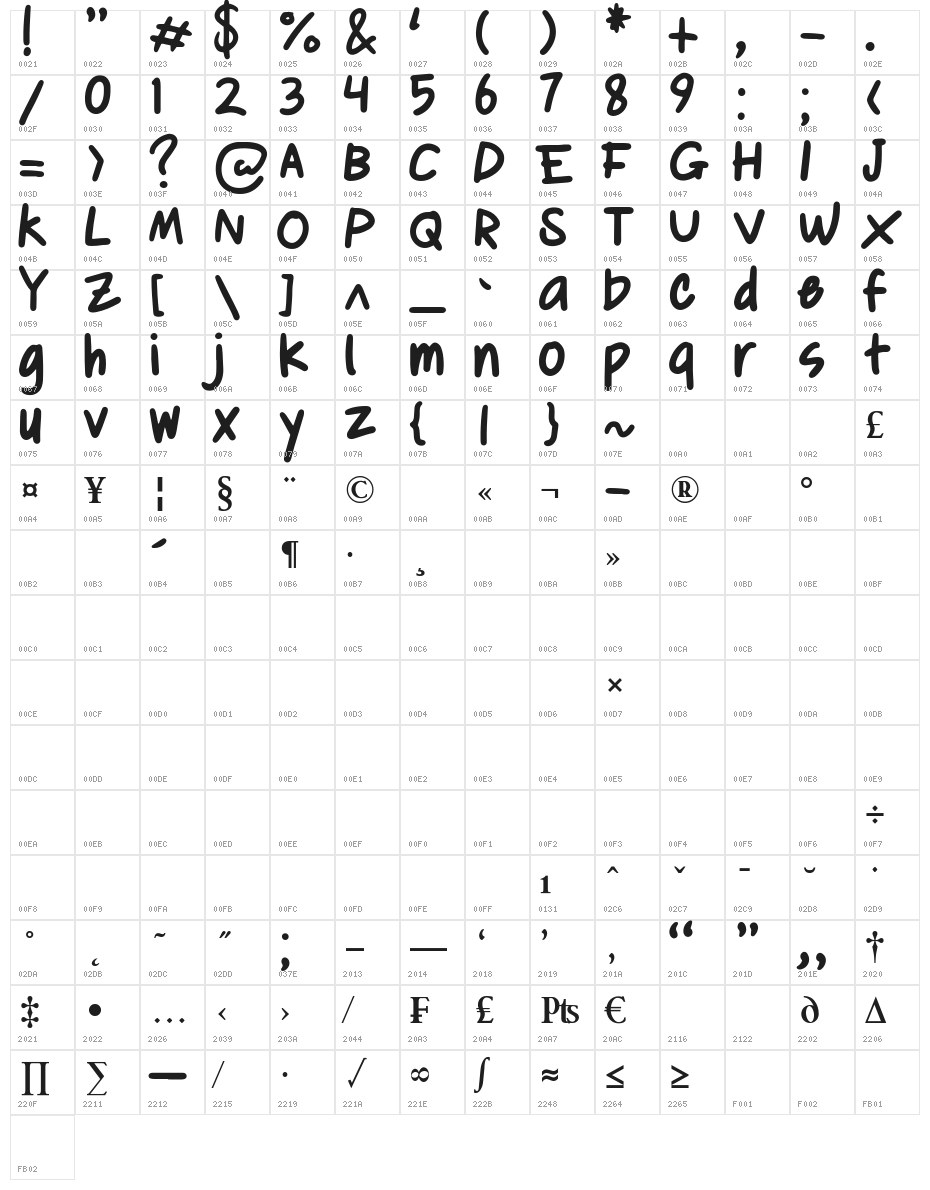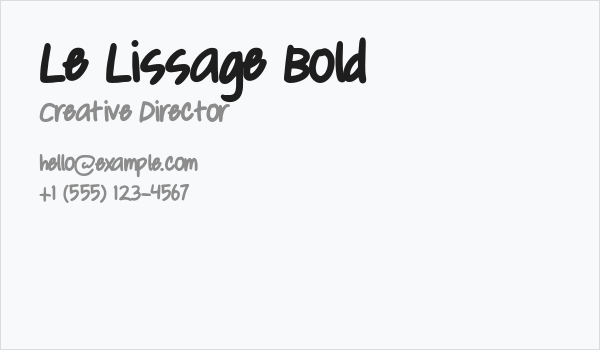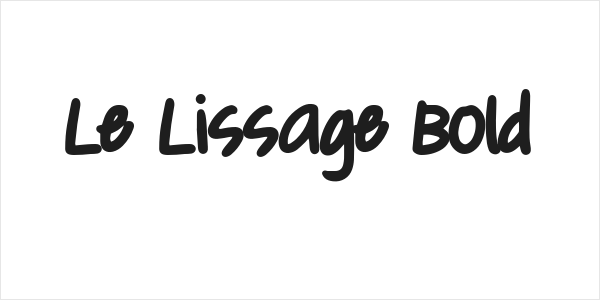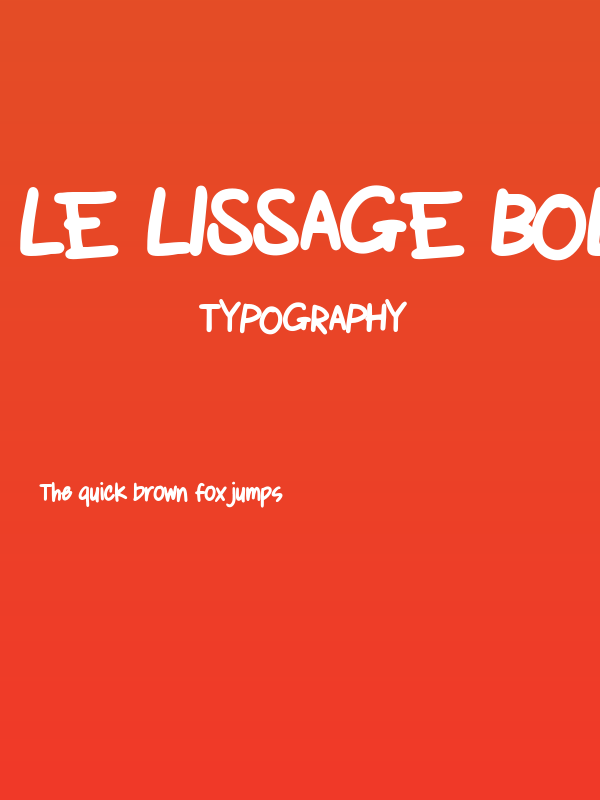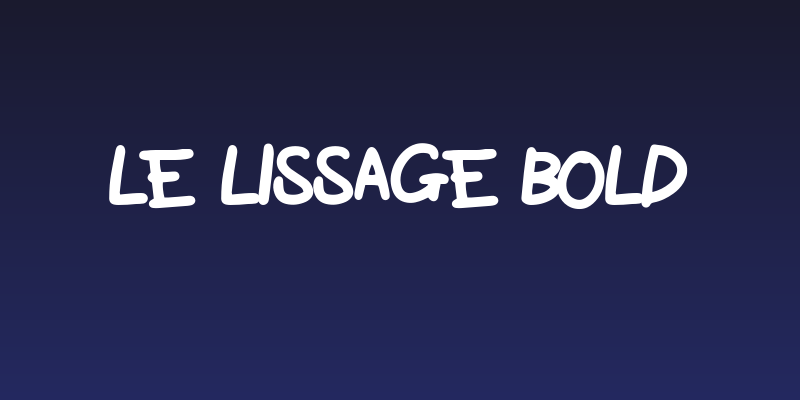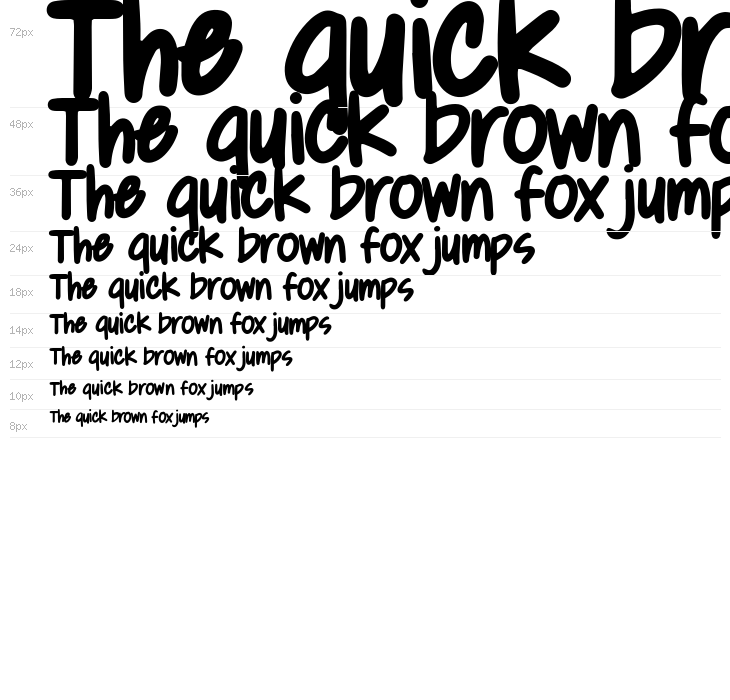
Le Lissage Bold Font
Le Lissage Bold Description
This font features a bold, handwritten style with smooth, rounded edges and a playful, casual appearance. The letters are slightly slanted, giving it a dynamic and energetic feel. The uppercase and lowercase characters maintain a consistent thickness, contributing to a cohesive look. Numbers and special characters are designed with the same boldness and fluidity, ensuring uniformity across all glyphs. The font's informal and approachable style makes it ideal for projects that require a personal touch or a friendly tone.
| Use Case | Logos, Headlines, Informal Invitations |
| Proposed Projects | Ideal for greeting cards, children's books, casual branding, and social media graphics. |